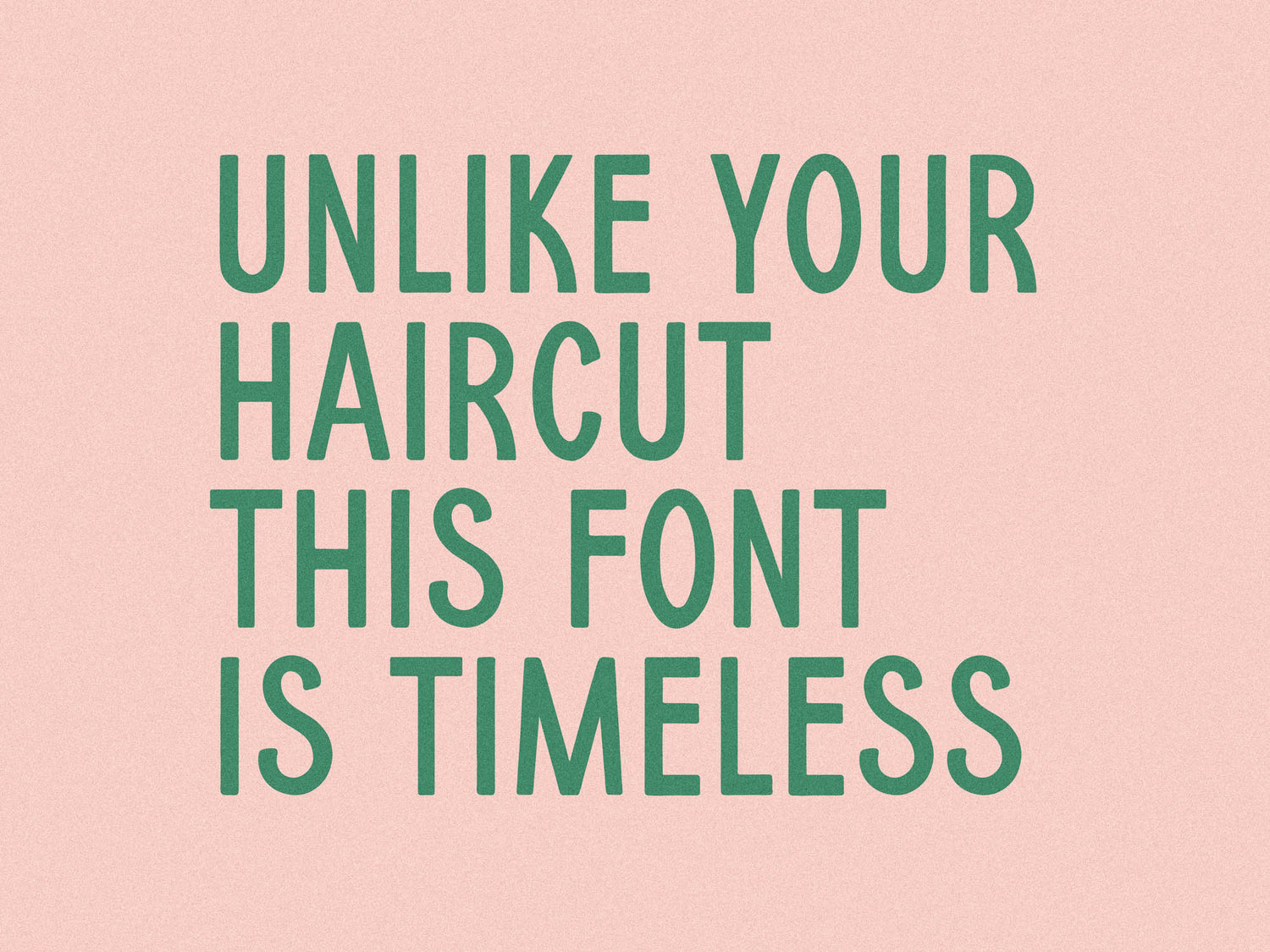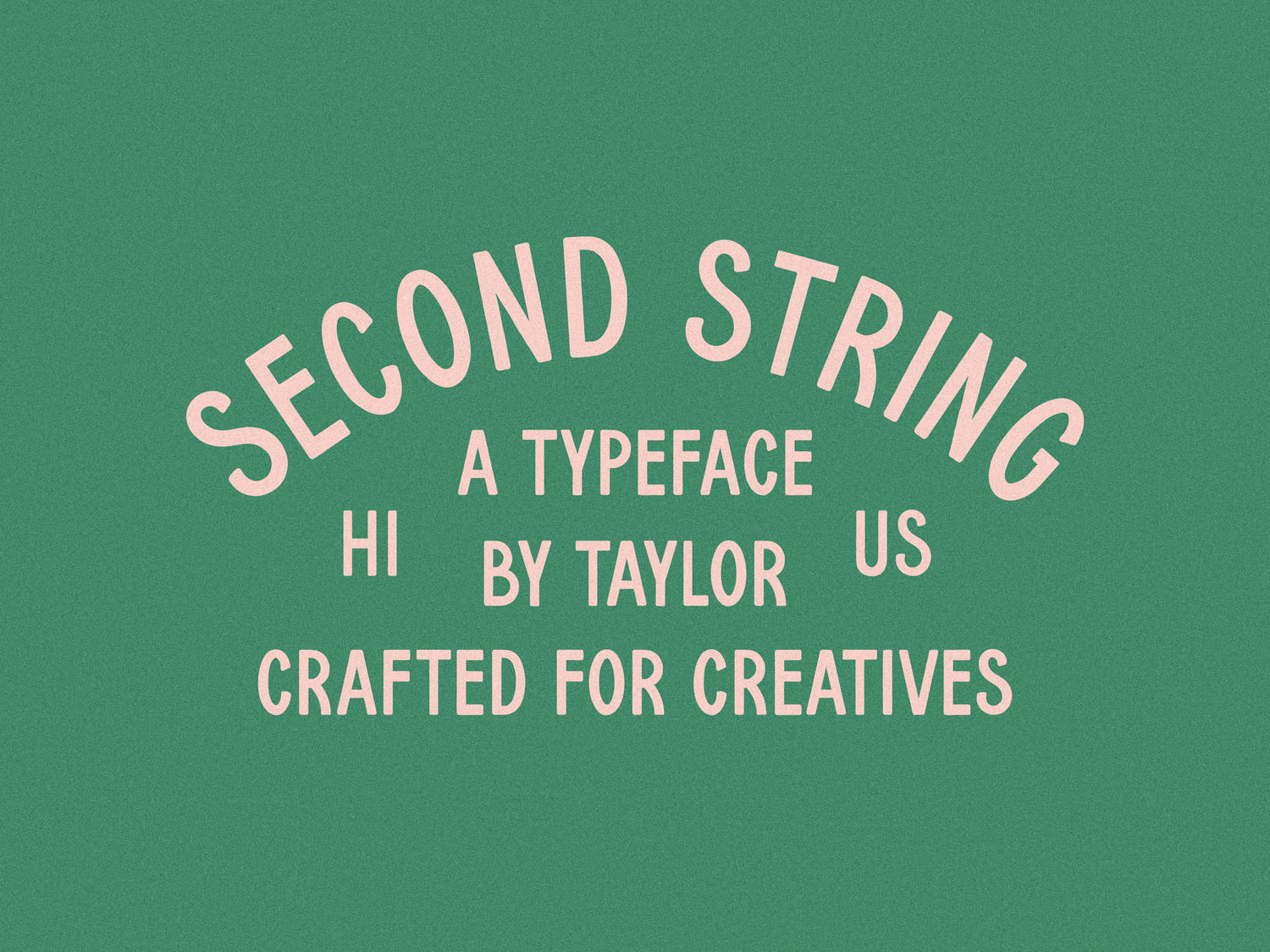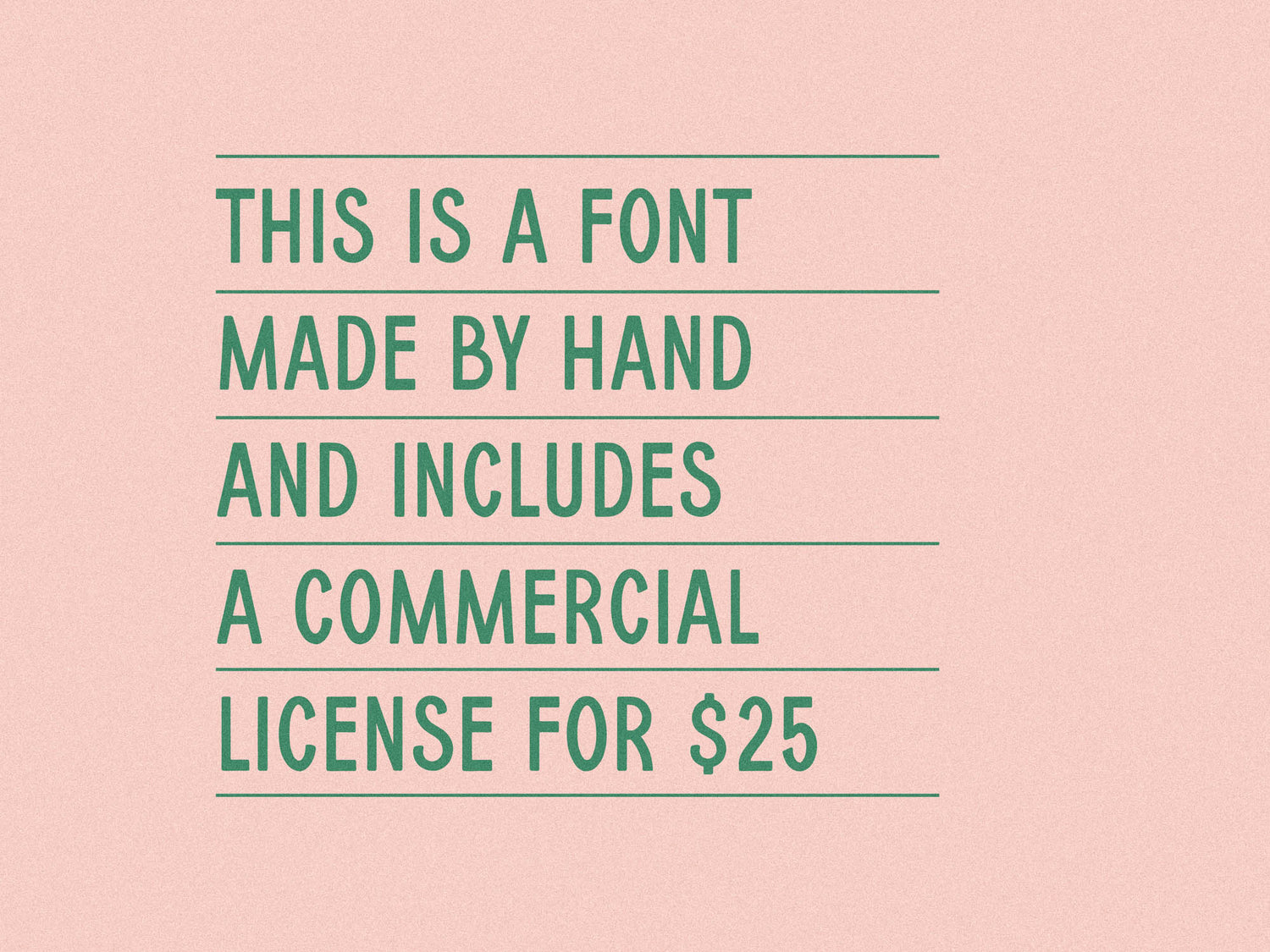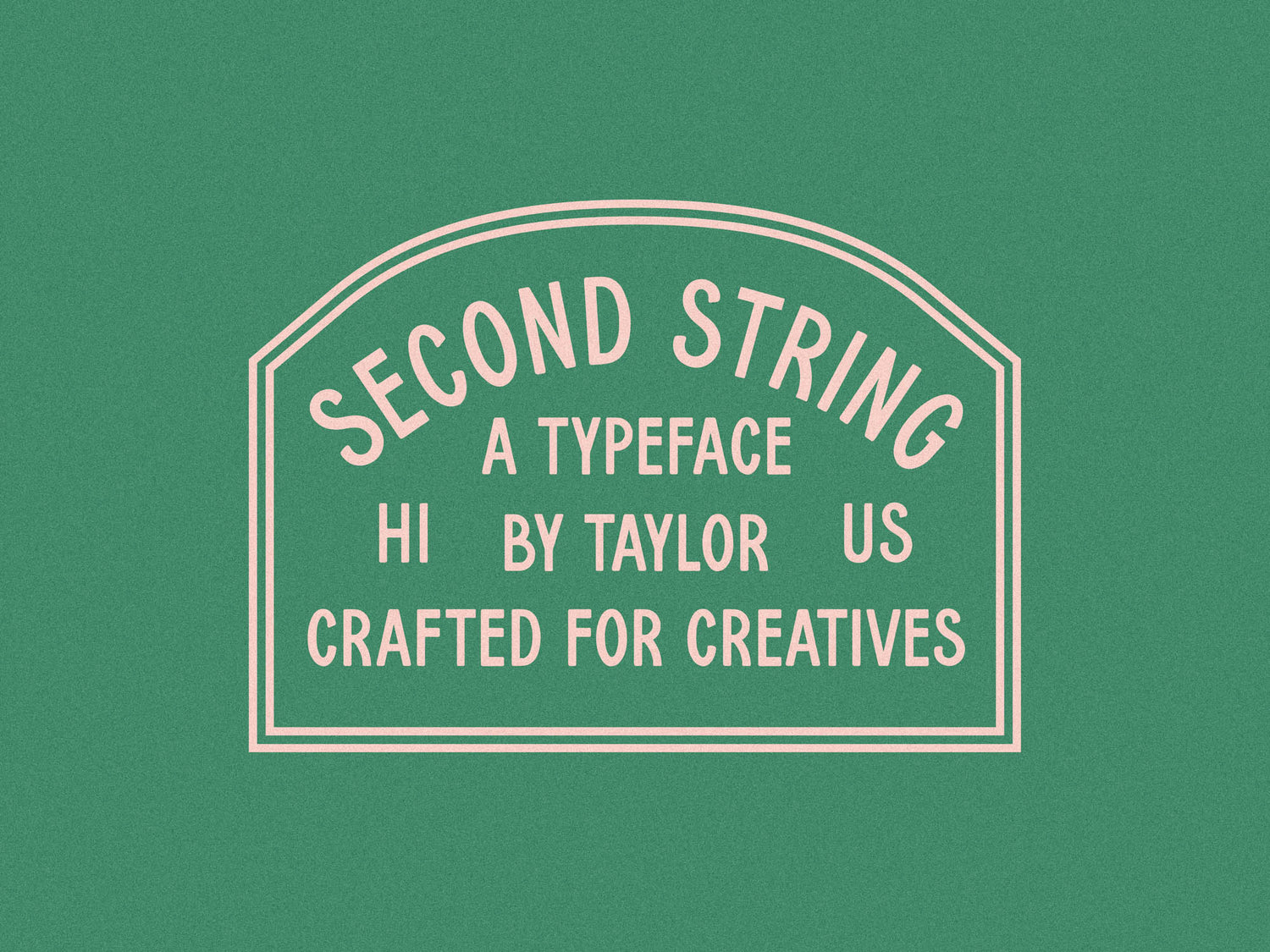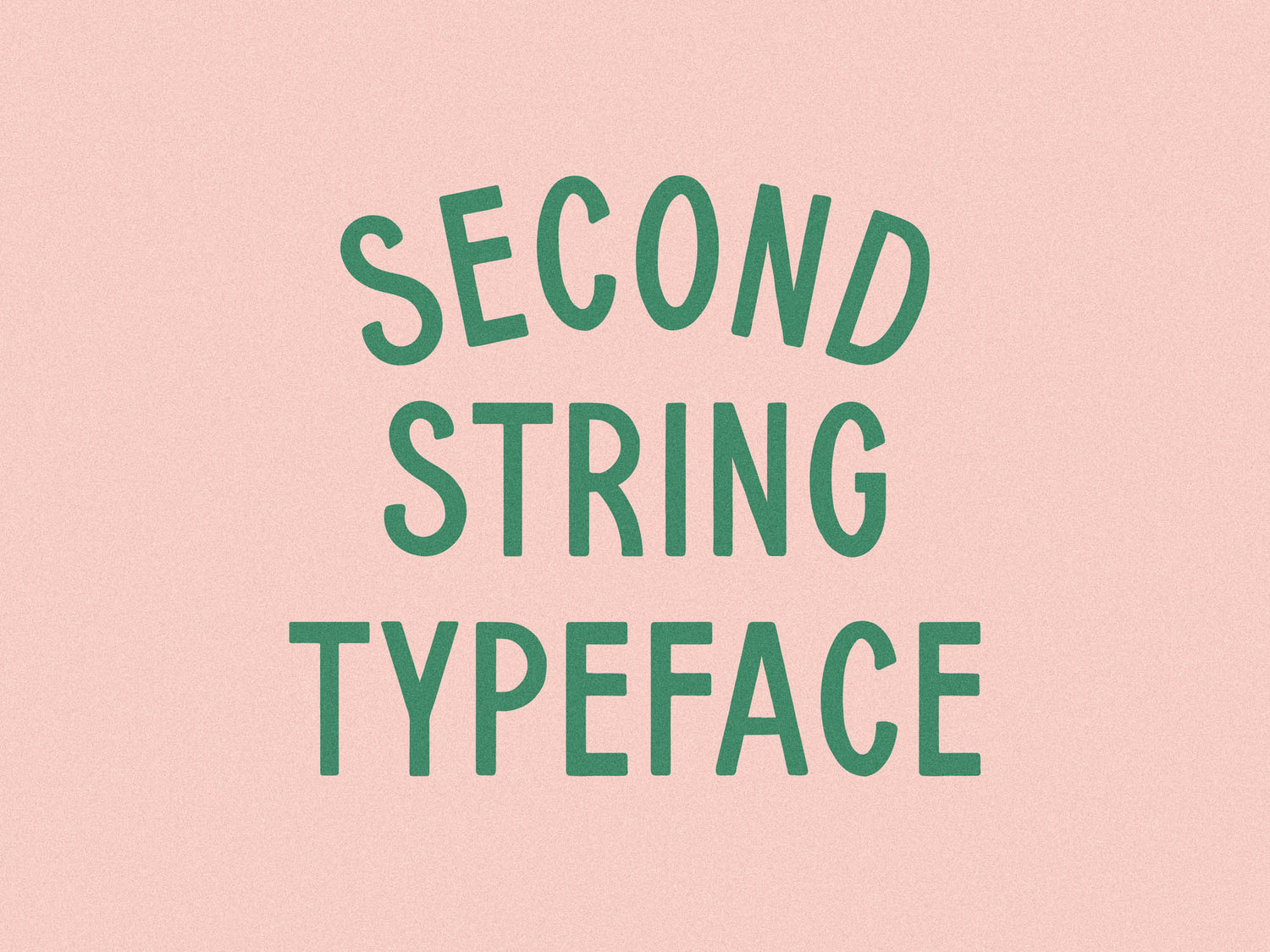
Second String
Despite the name, Second String is the kind of typeface that gets picked first.
Clean forms, subtle nostalgia, and the kind of versatility that works across branding, packaging, or anything that benefits from feeling quietly timeless. New to the lineup, but already pulling its weight.